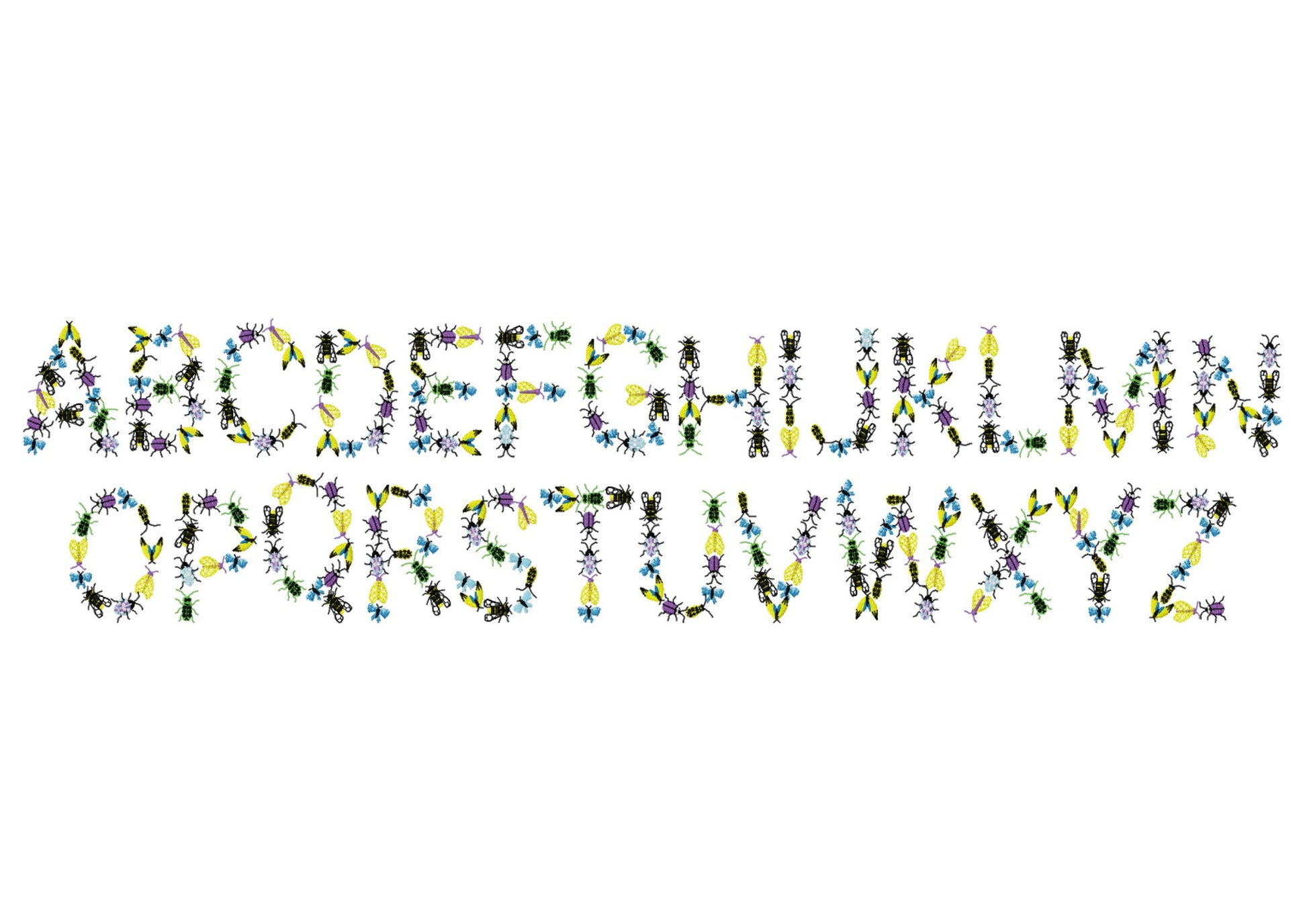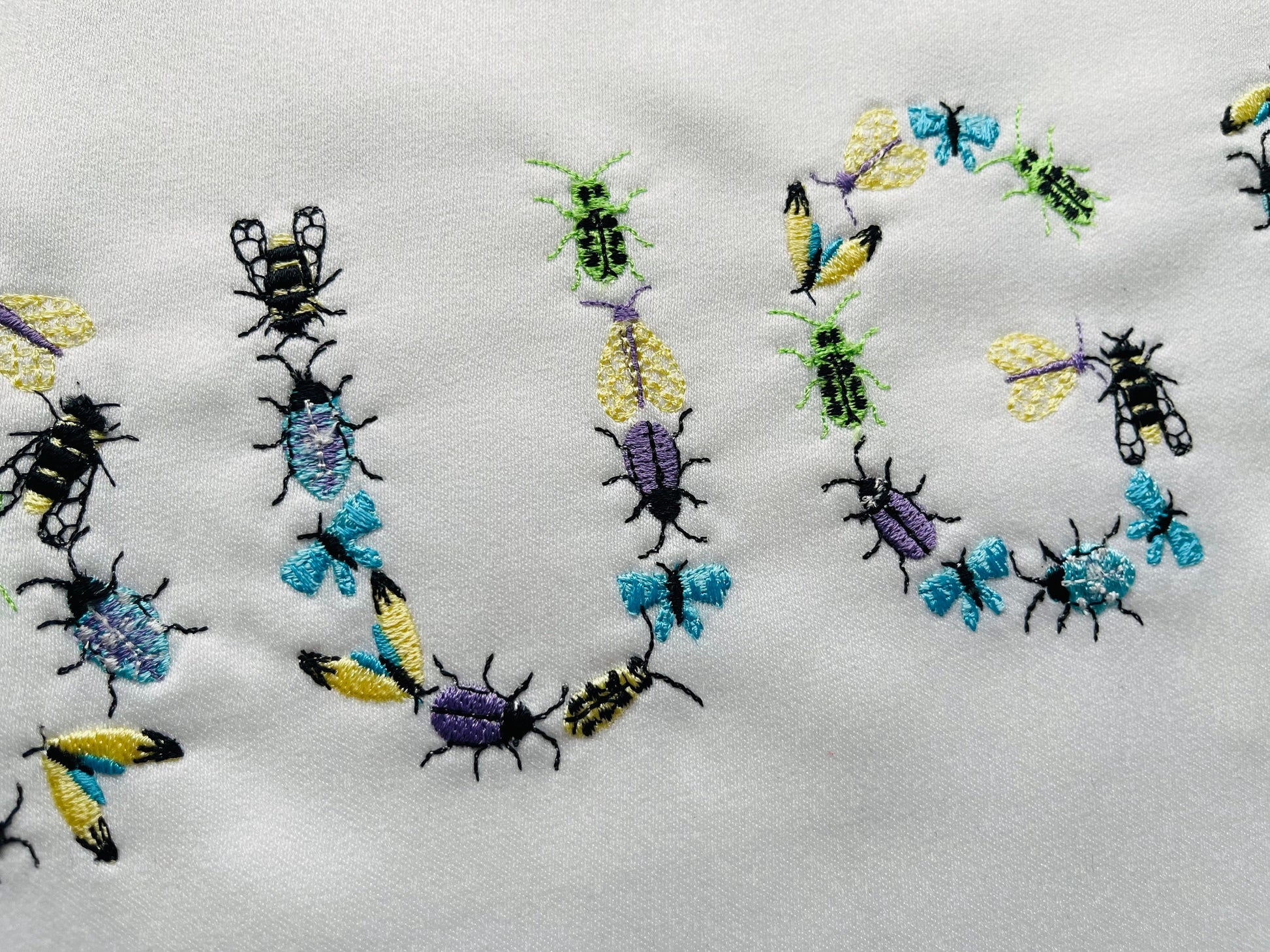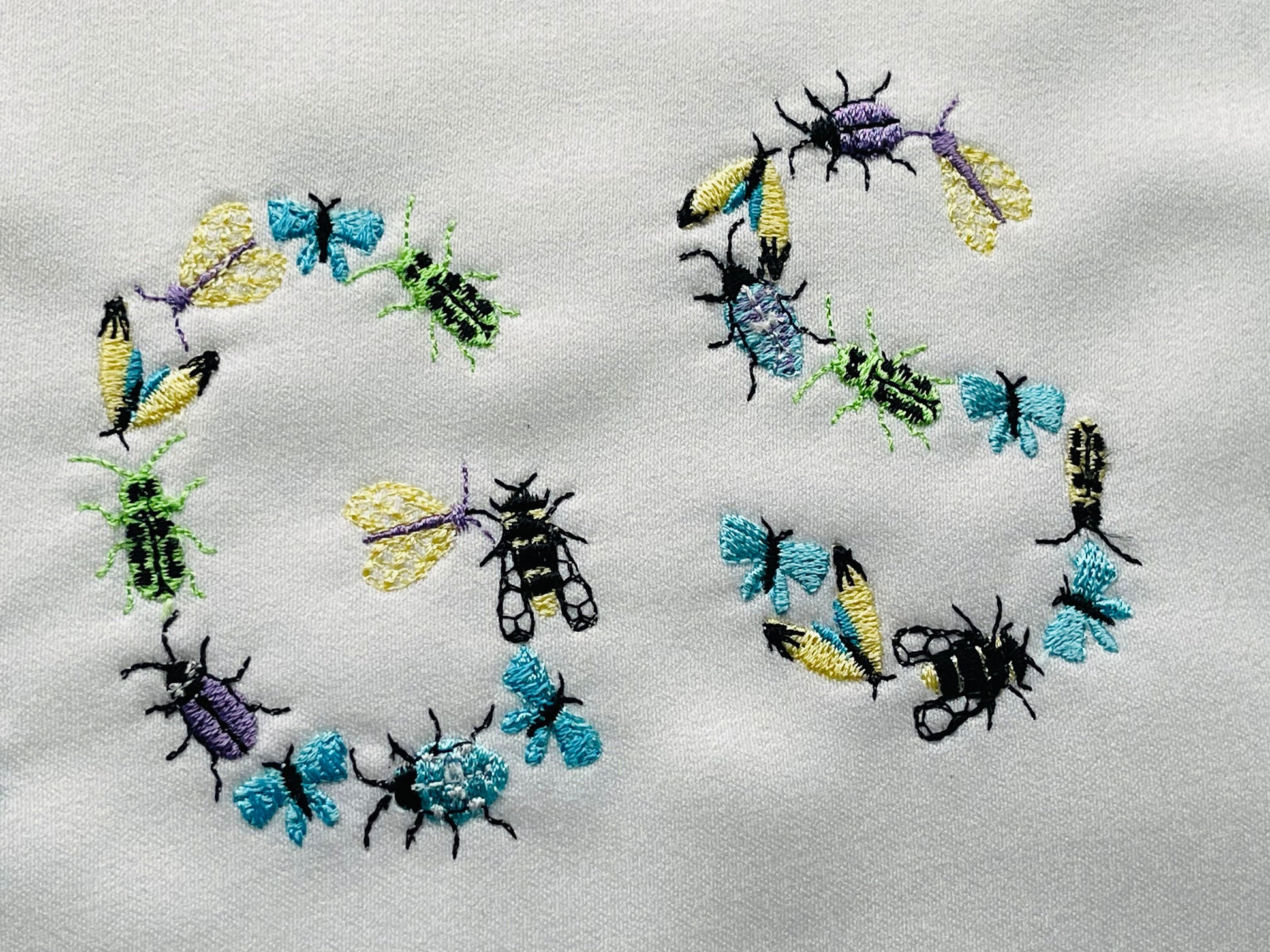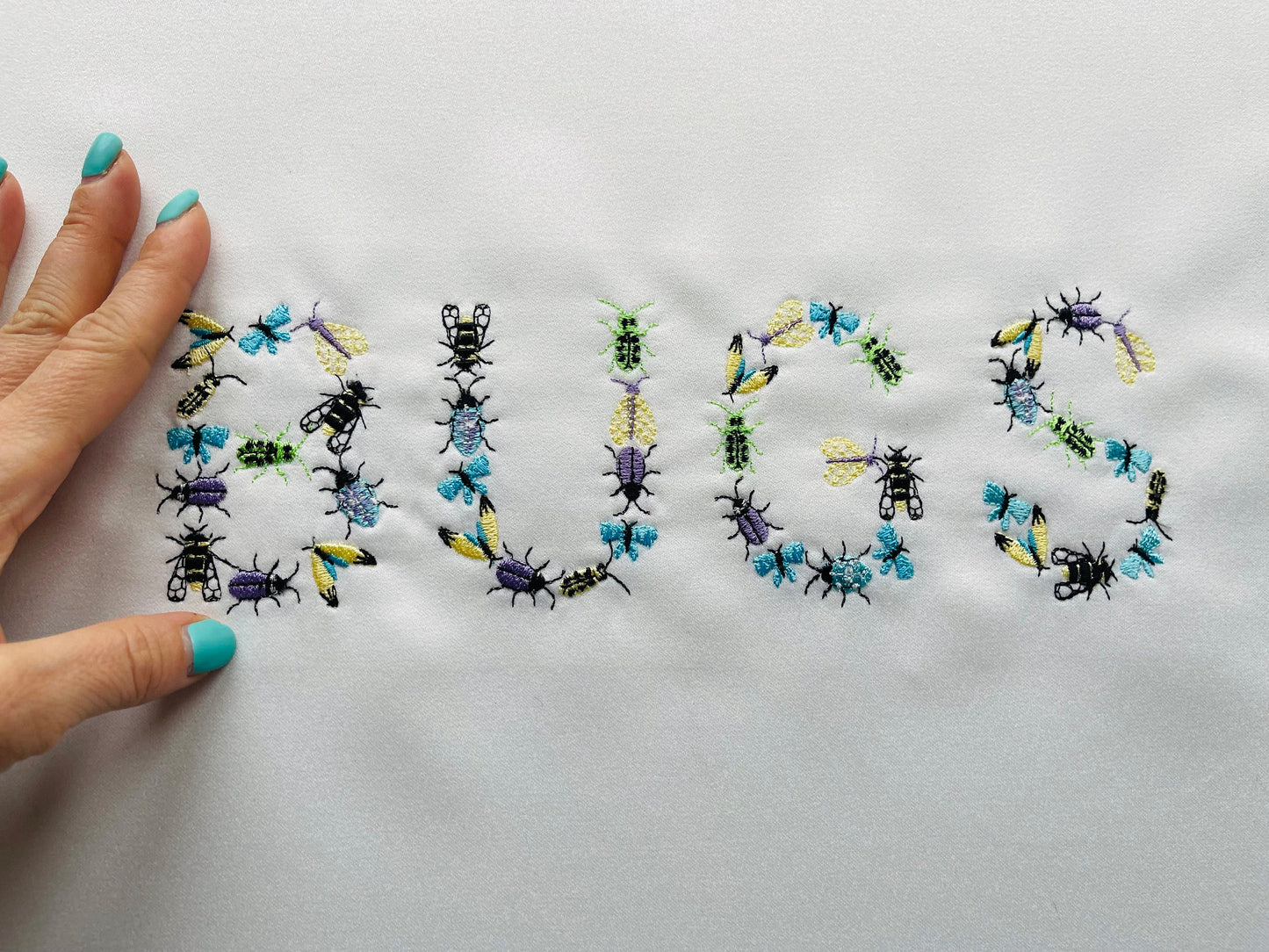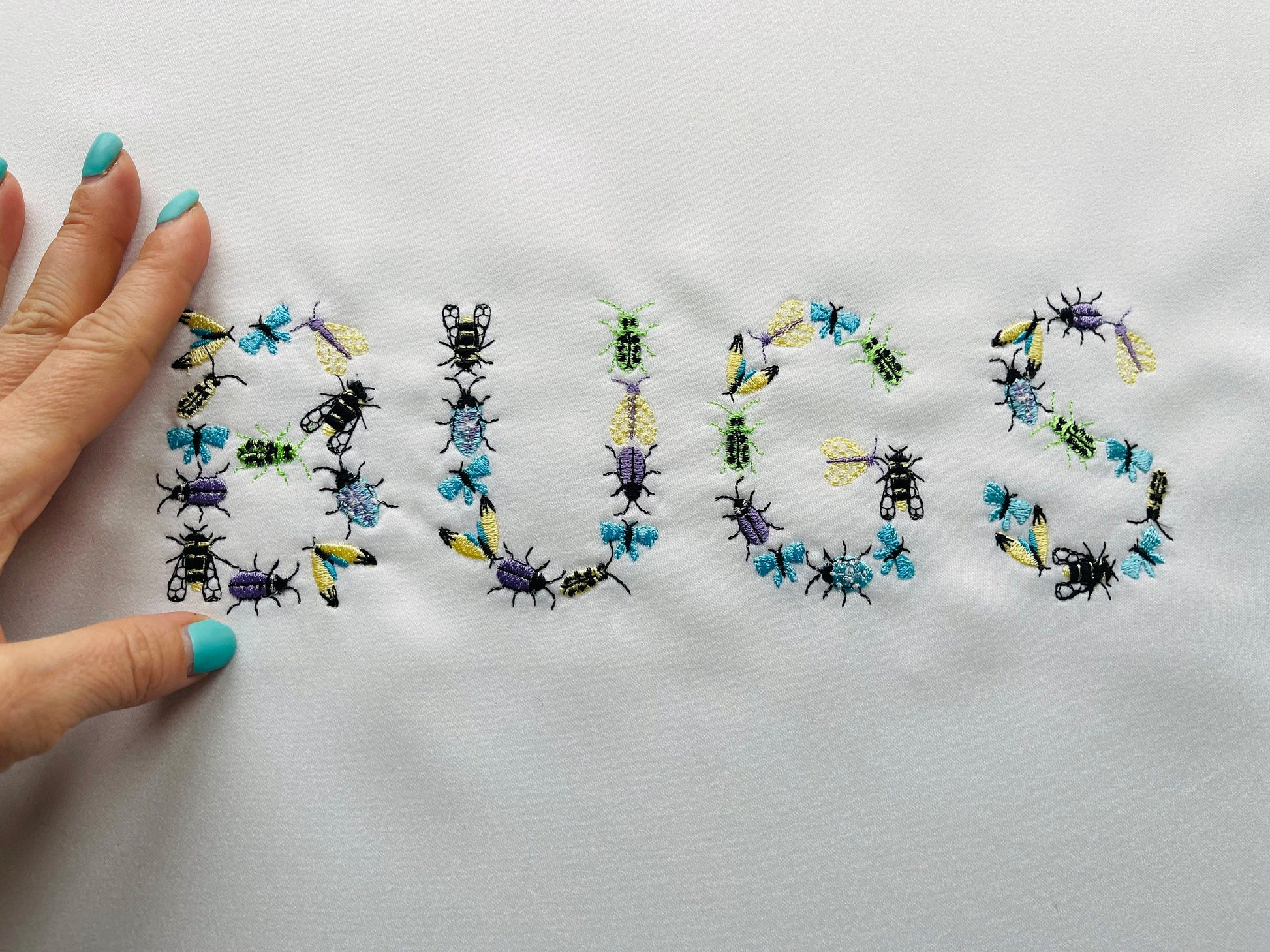
Or click to open the linkA spring bugs font with a bee, moth, butterfly and little bugs. Fun for kids' names, garden shirts, bags and pillows.
Uppercase letters A to Z. Four sizes: 2.6, 3.2, 4 and 5 inches.